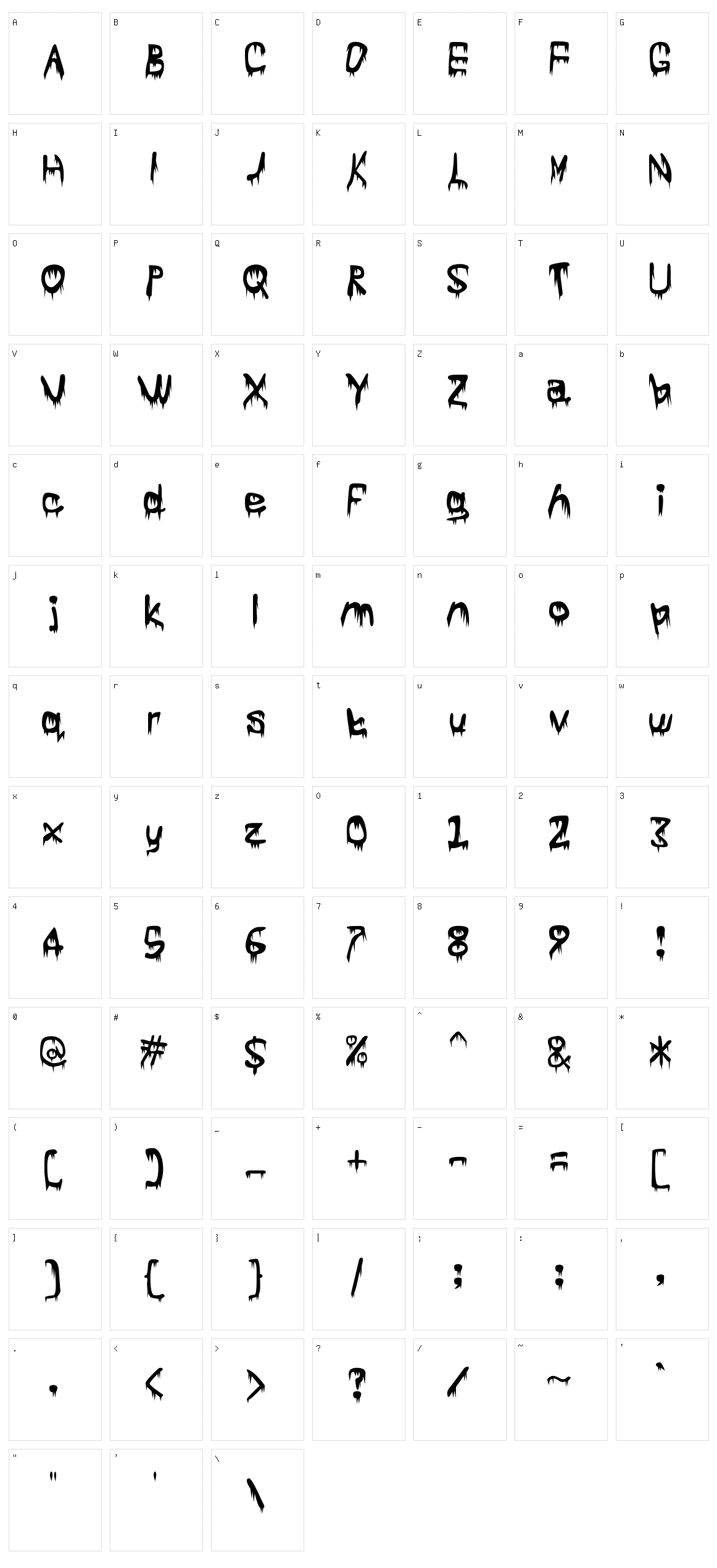
The free font Subtlety is carefully designed by Blahfonts, showcasing a thoughtful balance of creativity and usability and falls under the Horror font style. When you download the ZIP file, it contains only 14.37 KB of font files, making it lightweight and quick to download. Please review the license details below to understand permitted usage and distribution rights. If license information is not available, we recommend using this font for personal projects only or contacting the author directly for commercial usage permissions.